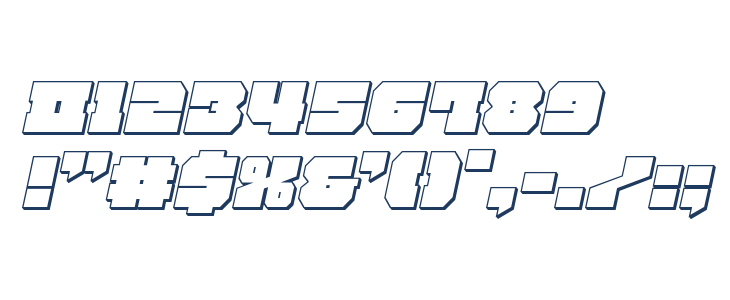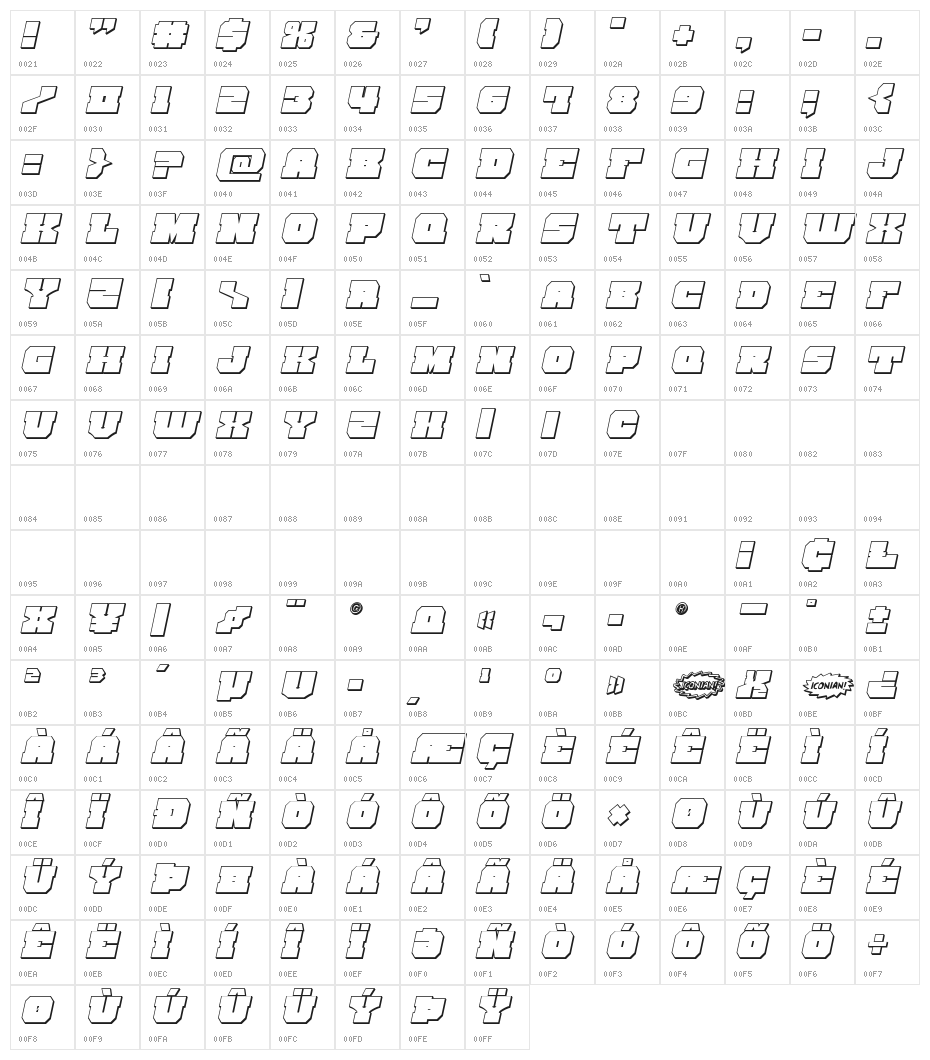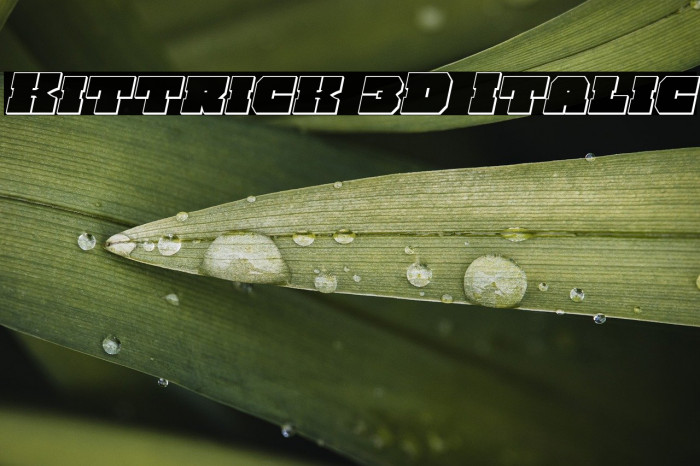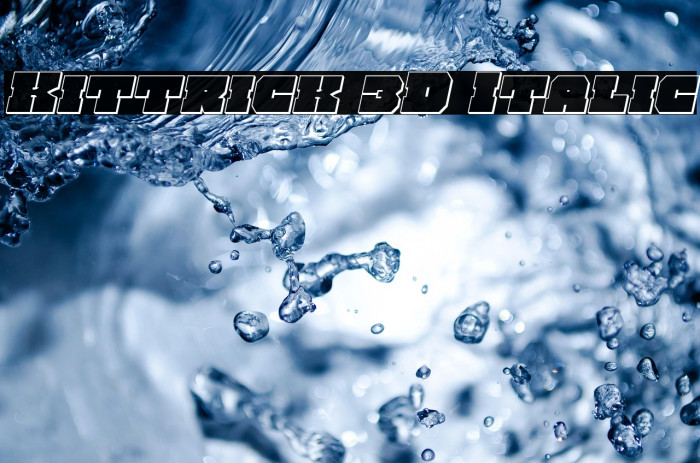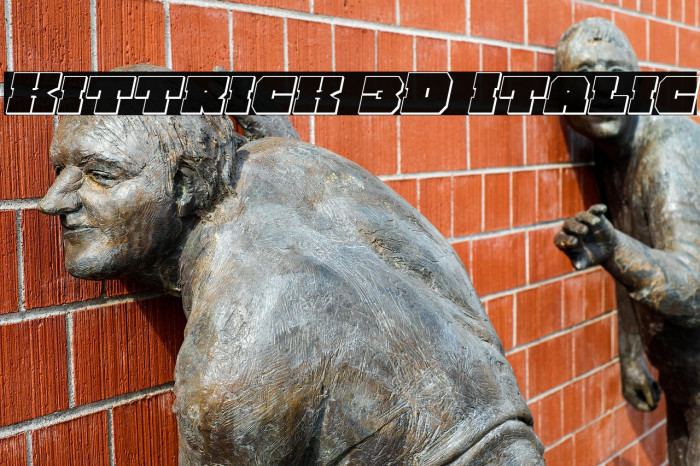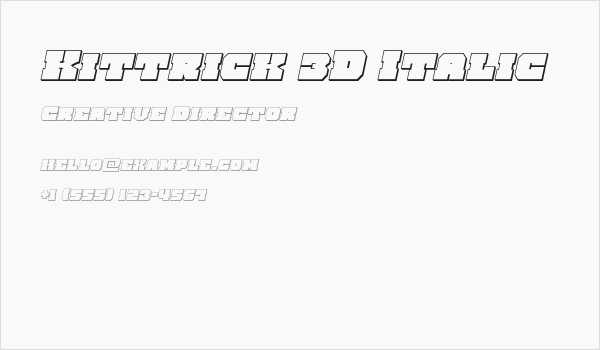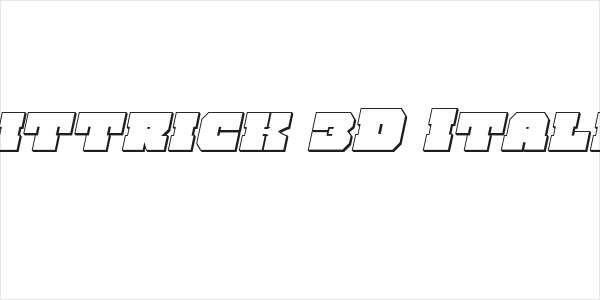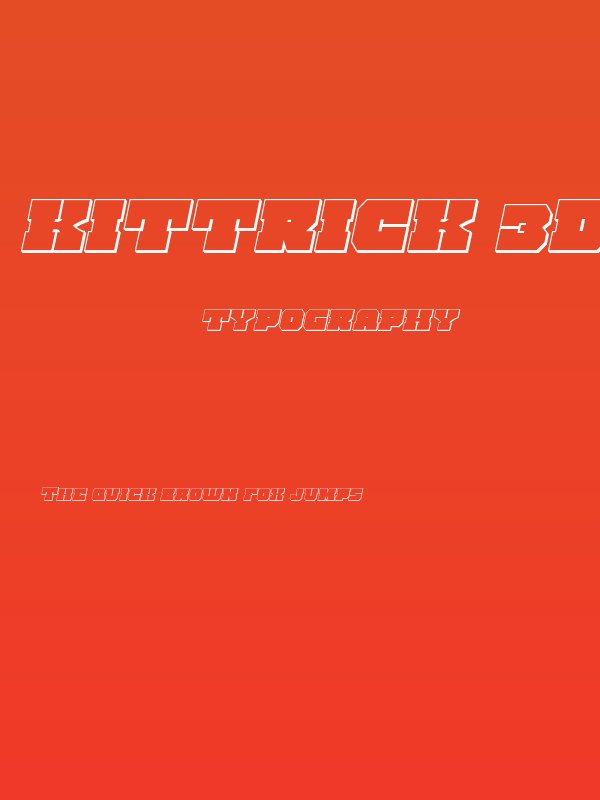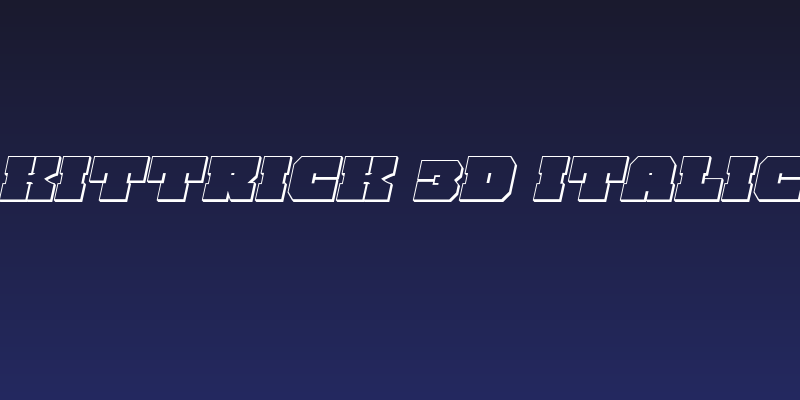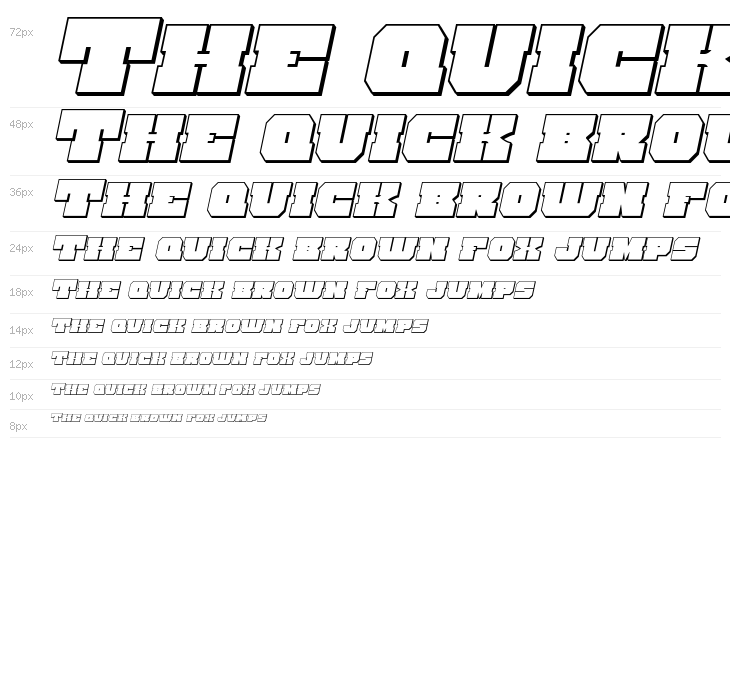
Kittrick 3D Italic Font
Kittrick 3D Italic Description
This font features a bold, three-dimensional design with a strong, angular structure. The characters are outlined, giving them a distinct, shadowed appearance that enhances their 3D effect. The uppercase and lowercase letters maintain a consistent style, with sharp edges and a blocky form that conveys a sense of strength and modernity. The numerals and special characters follow the same design principles, ensuring uniformity across all glyphs. This font's unique style makes it stand out, suitable for projects that require a bold and eye-catching typeface.
| Proposed Projects | Ideal for posters, video game graphics, logos, and any design needing a strong, modern aesthetic. |